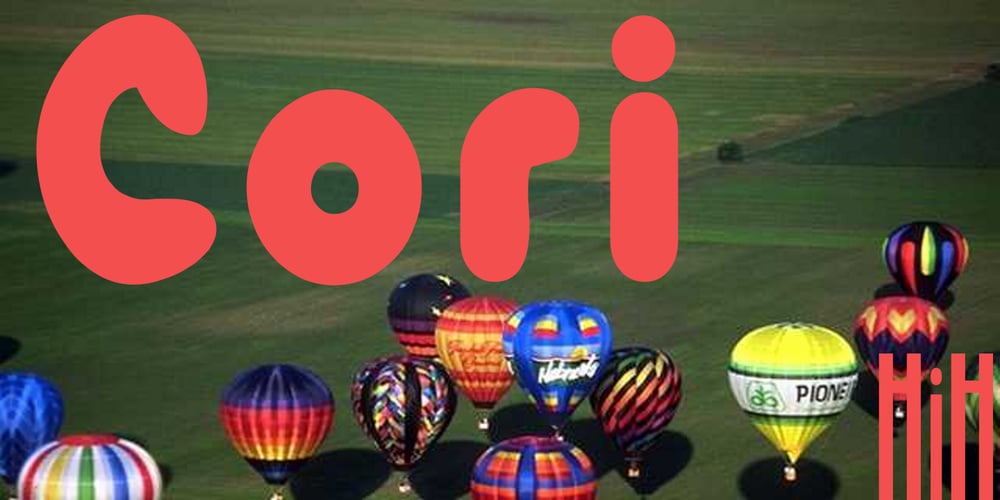
Cori
Cori font
Cori Font Family was designed by published by HiH. Cori contains 2 styles and family package options. You wrote on your school notebooks, didn’t you. Of course, just about everyone did. And those that didn’t are probably in therapy trying to overcome the repression and guilt. Balloon letters are fun, easy to draw and have a light-hearted presence. With little autonomy, what young person can resist the opportunity to make a public, personal statement on their notebook. Guess what! Adults do it too – with our cars, our houses, our toys, our accessories and so on. And how “grown-up” are we really? Anyway, my niece, Cori, made this nice, colorful, hand-drawn birthday card. It was so vibrant and fun – in warm circus colors – that I could not resist making it into a font. Use it for positive, fun stuff, stuff with a light touch – an invitation for an informal party perhaps, but probably not a formal dinner at the White House. This font is not comfortable in a bowtie. But don’t be fooled. Casual as Cori is, you can set at least twelve major European languages with it, in addition to English: Albanian, Danish, Dutch, Finnish, French, German, Hungarian, Italian, Norwegian, Portuguese, Spanish and Swedish. Cori Valentine adds a decorative Valentine border to the upper case of Cori. By leaving out the bow in the upper center of the border we were able to fit the border around the accented caps. Similarly, we omitted the butterfly for the Ccedilla glyph. Blank versions of the regular border & the bowless border are provided at positions 135 & 137 in case you want to put a border around your signature or something like that. Just for reference, the letterforms for Cori Valentine are 75% the size as the regular Cori font. We would like to assure you that it is permissible to use Cori Valentine to create a romantic card, flyer or note during any month with less the 32 days.